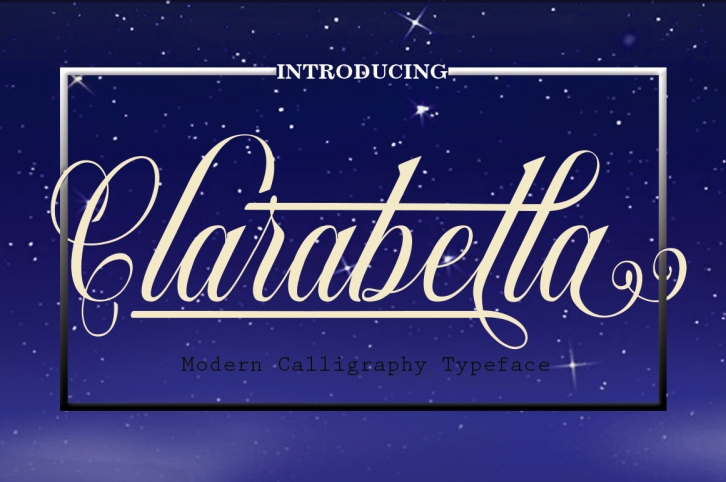
Clarabella (Script) is a trendy and unique font with an authentic style. It was designed by CreativeWork and it's a great choice for creative people who need such a font. It was released on April 24, 2018 and the file size is 3.50 MB. Clarabella (Script) will add an organic vibe to any design idea!